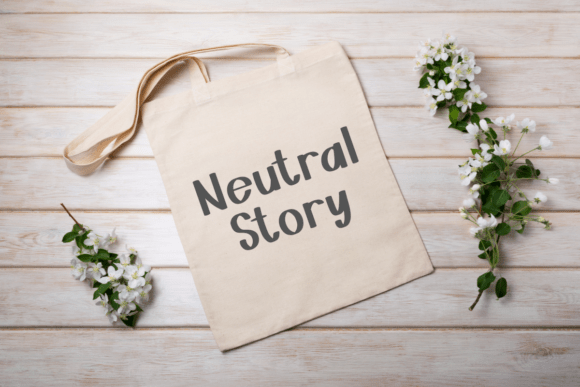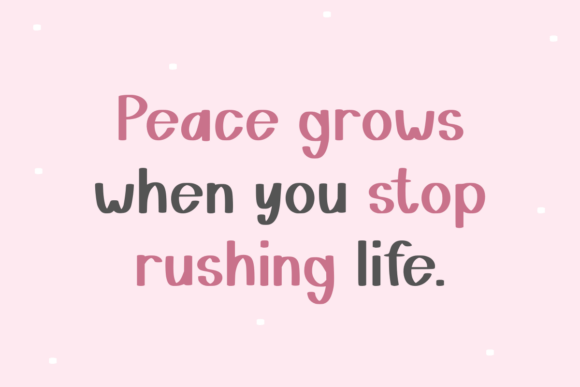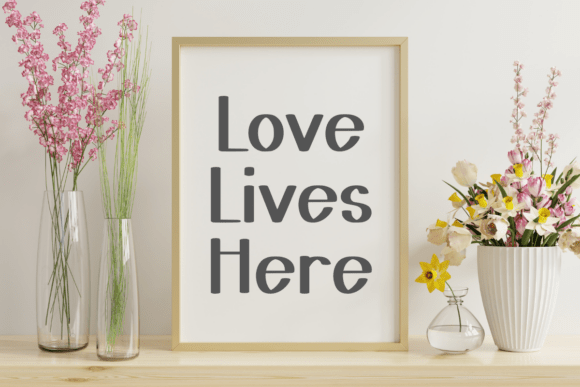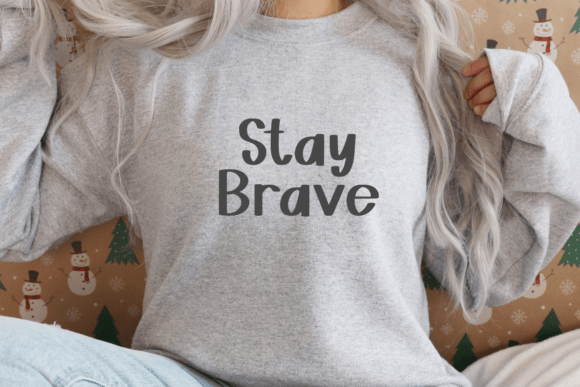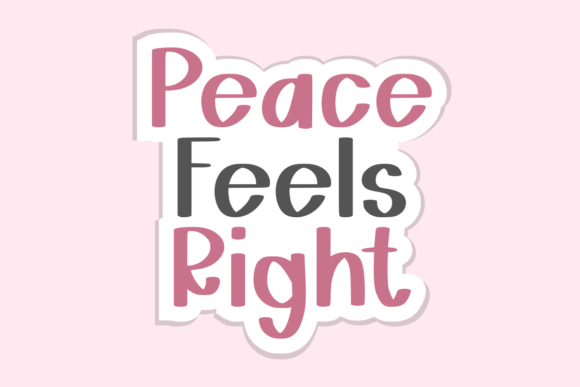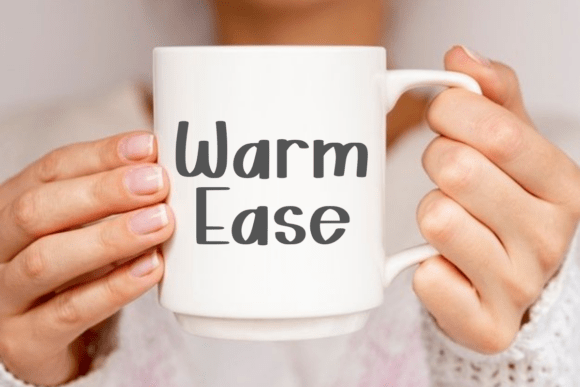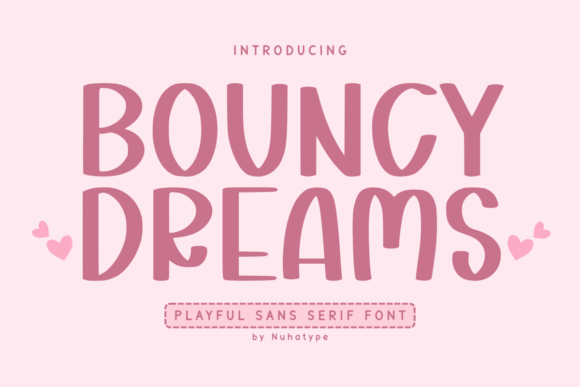
The Bouncy Dreams Font: A Crafter’s Dream Come True
I’ll never forget the moment I stumbled upon the perfect font for my craft project. I was working on a custom sticker sheet for my kid’s school supplies, and I just couldn’t find a font that felt right. That was until I discovered the Bouncy Dreams font. With its soft, friendly, and natural look, it instantly brought a warm, handcrafted feeling to my design. If you’re a fellow crafter, designer, or creative hobbyist, you’re in luck because today I’m excited to share with you the magic of Bouncy Dreams.
As a designer and crafter, I’m always on the lookout for fonts that are both versatile and adorable. Here’s my honest review of Bouncy Dreams:
- ✅ Easy to read and cut: Bouncy Dreams features simple strokes and smooth curves, making it a breeze to use with cutting machines like Cricut and Silhouette.
- ✅ Perfect for kids’ projects: The font’s playful and friendly vibe makes it ideal for kids’ worksheets, coloring pages, and classroom printables.
- ✅ Works beautifully with OpenType features: Bouncy Dreams supports a range of OpenType features, including glyphs and stylistic alternates, which can add an extra layer of creativity to your designs.
A Few Quirks to Keep in Mind 🤔
- ⚠️ Limited use in very formal designs: While Bouncy Dreams is perfect for crafty projects, it might not be the best fit for very formal or professional designs.
- ⚠️ Some letters may require manual kerning: As with any font, you might need to adjust the kerning between certain letters to get the perfect look.
The Story Behind Bouncy Dreams
The story behind Bouncy Dreams is one of passion and creativity. According to the designer, the font was inspired by the joy of childhood and the beauty of handmade crafts. The goal was to create a font that felt soft, friendly, and approachable – perfect for crafty projects and kids’ designs. Whether or not that’s true, one thing is certain: Bouncy Dreams has captured the hearts of designers and crafters everywhere.
| Font Name | Bouncy Dreams Font |
| Author | Nuhatype |
Q: What type of projects is Bouncy Dreams best suited for?
A: Bouncy Dreams is perfect for craft projects, kids’ worksheets, classroom printables, stickers, and DIY designs.
Q: Is Bouncy Dreams suitable for very formal designs?
A: While Bouncy Dreams is a beautiful font, it’s best suited for informal or playful designs. You might want to choose a different font for very formal projects.